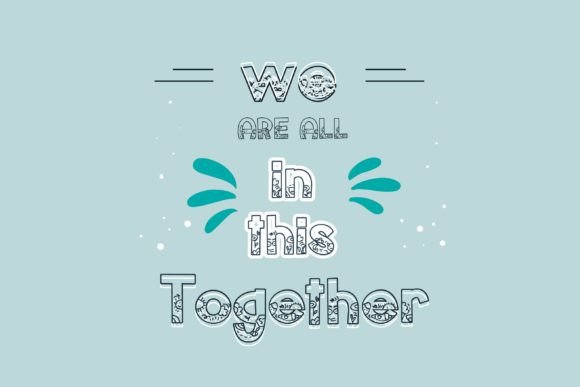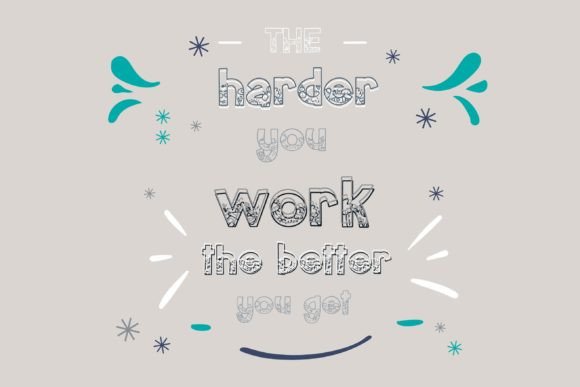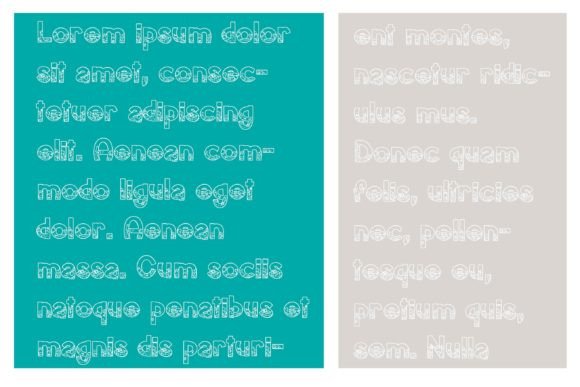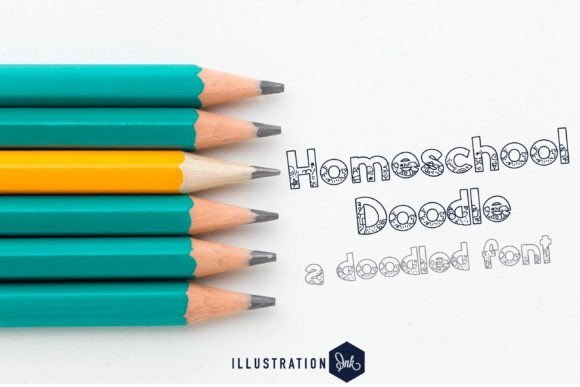
Introduction to Homeschool Doodle Font
Homeschool Doodle is a fun hand-crafted sans serif decorative font.
This is a simple typeface with a bit of a crafty look and filled with childish doodles .
Why Choose Homeschool Doodle Font?